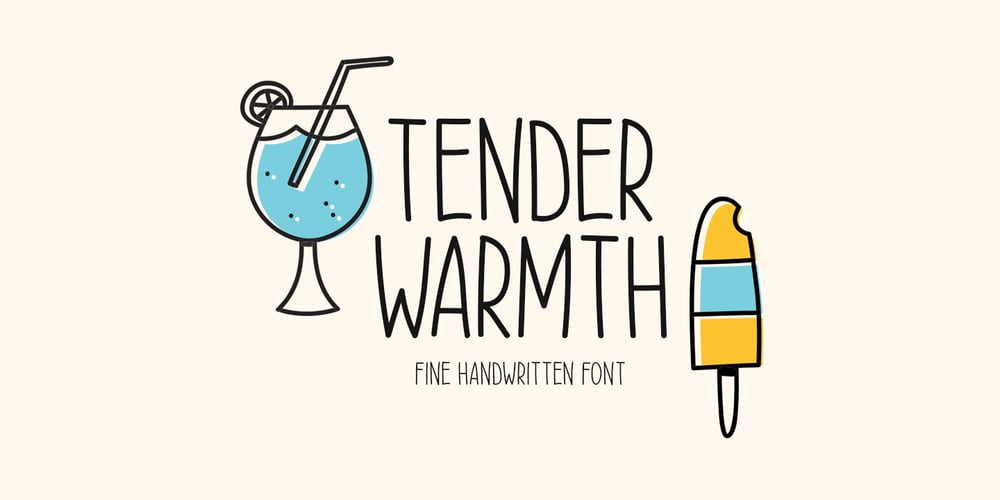
Tender Warmth Font Family was designed by Md Shohail Bhuian and published by Seemly Fonts. Tender Warmth contains 1 styles and family package options. Discover Tender Warmth, a stunning handwritten font that’s perfect for all your creative needs. Whether you’re designing stationery, logos, t-shirts, prints, website headers, photo frames, flyers, music covers, posters, or image sliders, Tender Warmth brings a unique and sophisticated flair to your work.